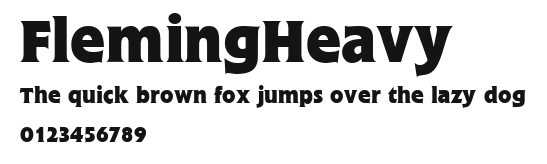
FlemingHeavy Preview
• Font Name: FlemingHeavy
About FlemingHeavy.ttf
FlemingHeavy.ttf is a modern, elegant sans-serif font designed for ultimate readability and visual harmony. Perfect for branding, headlines, web design, and print materials.